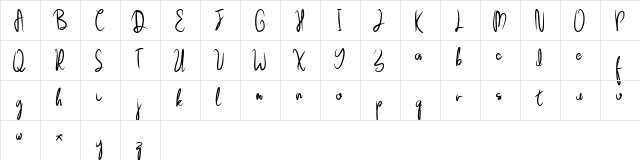
Cherlina Regular
| Designer | Muksal Creatif. 2019 |
Design Context for Cherlina Typeface
Cherlina is a composed and adaptable typeface that performs quietly and consistently across a wide range of design contexts.